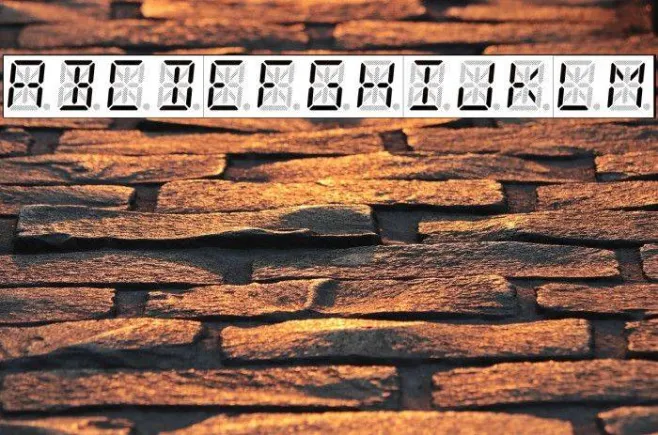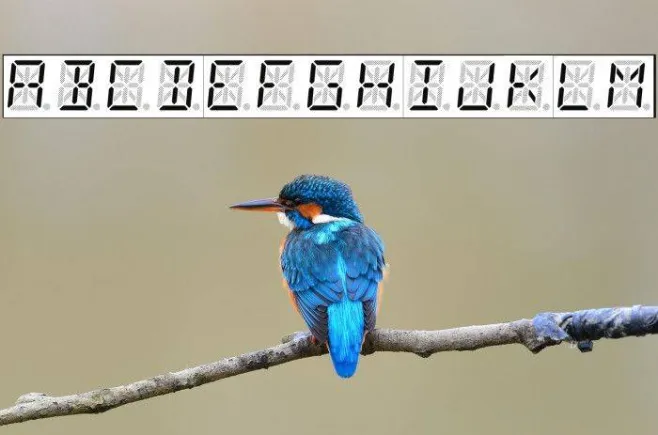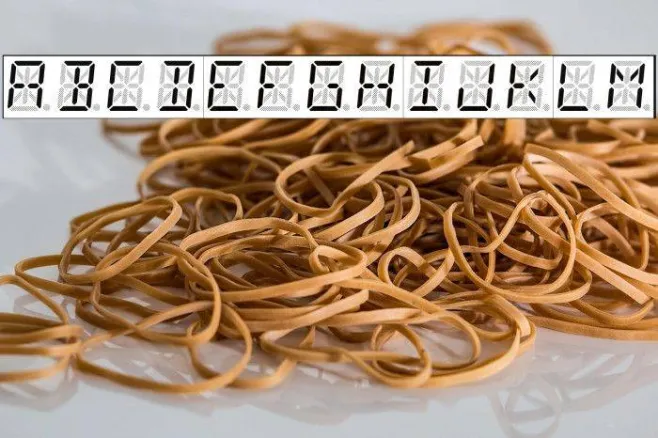
14 SegmentLED Font
14 SegmentLED Description
This font is designed to mimic the appearance of a 14-segment LED display, commonly used in digital clocks and electronic devices. Each character is composed of a series of segments that can be turned on or off to create the desired shape. The style is highly geometric and technical, with a focus on clarity and functionality. The characters are evenly spaced, and the design is consistent across both uppercase and lowercase letters, as well as numbers and special characters. This font is ideal for projects that require a digital or retro-futuristic aesthetic.
| Use Case | Headlines, Digital displays, Interfaces |
| Proposed Projects | Ideal for digital clocks, electronic device interfaces, retro-themed designs, and technical displays. |